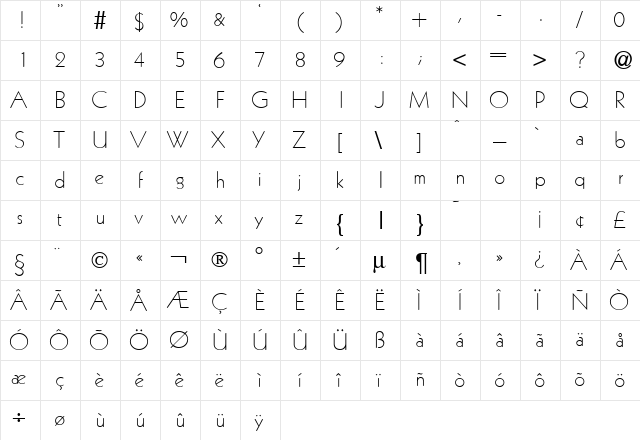
KabinLightDB Normal Font Preview
KabinLightDB Normal
KabinLightDB Normal Font Details
Design Context for KabinLightDB Typeface
KabinLightDB offers clean, dependable letterforms without strong stylistic allegiance, making it a practical choice for designers who need flexibility. Its slender proportions lend an understated elegance to any composition.
Pro Tip: Pair KabinLightDB with a font of contrasting weight or personality to build a more expressive typographic hierarchy.